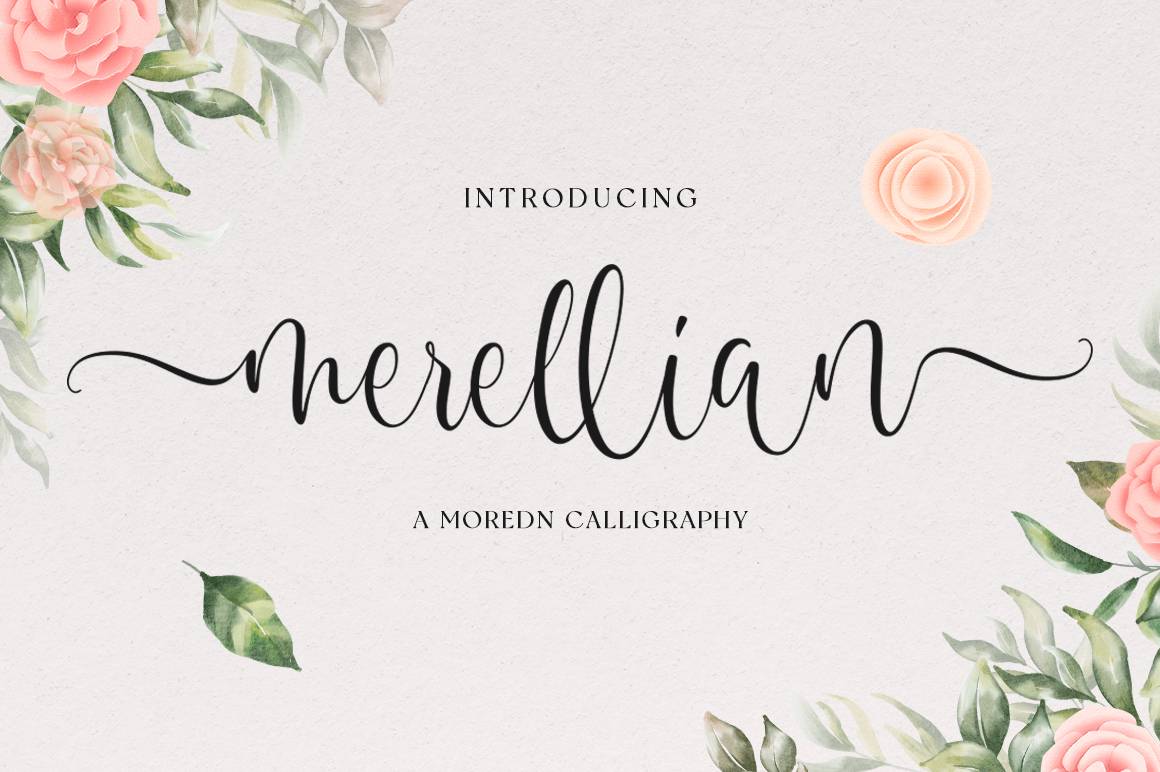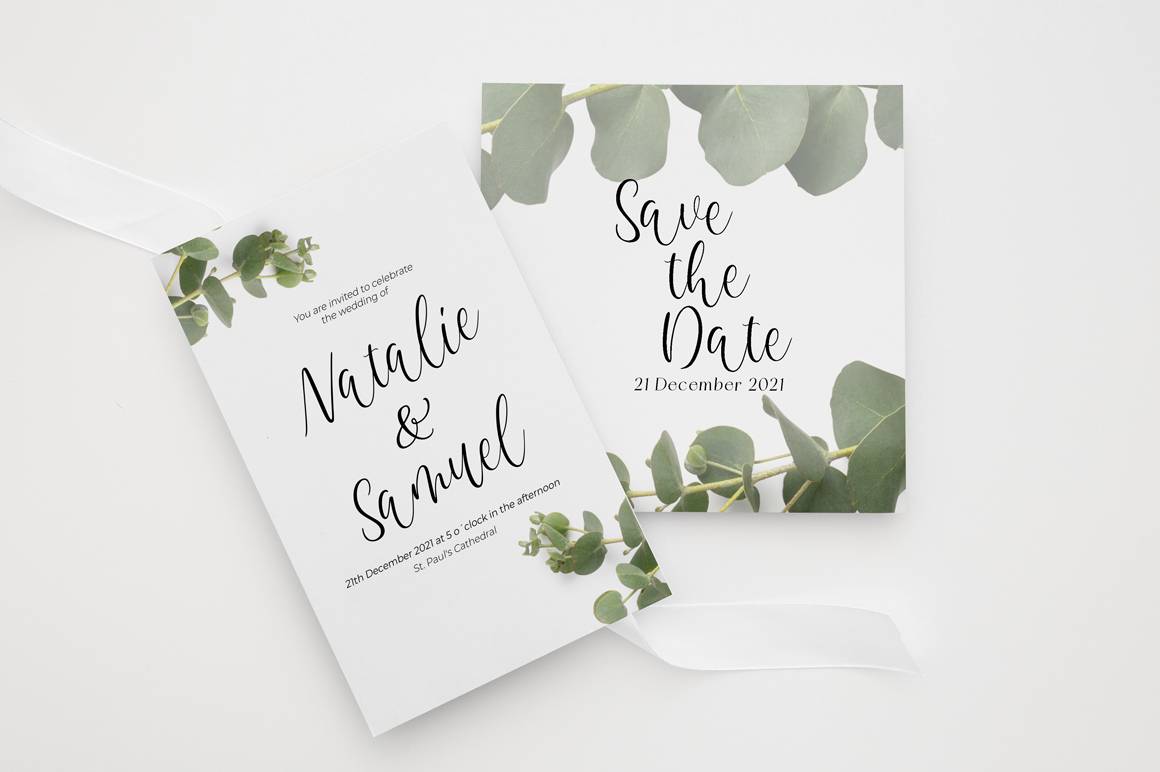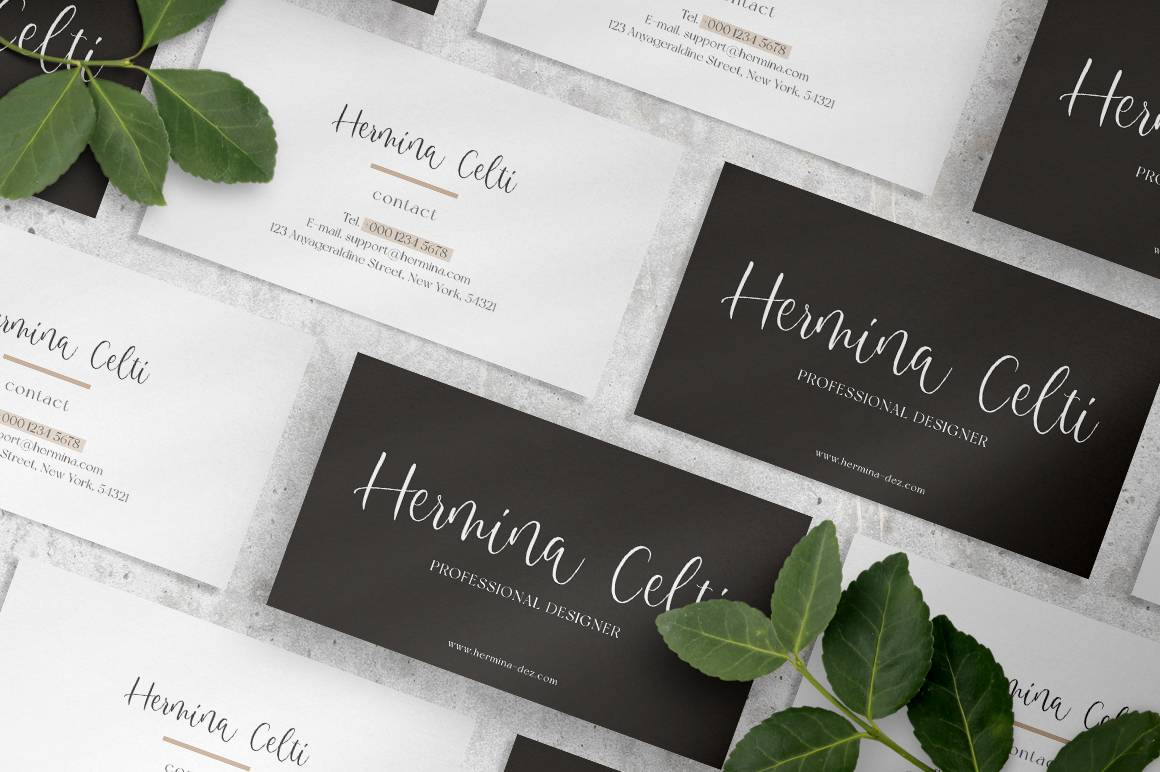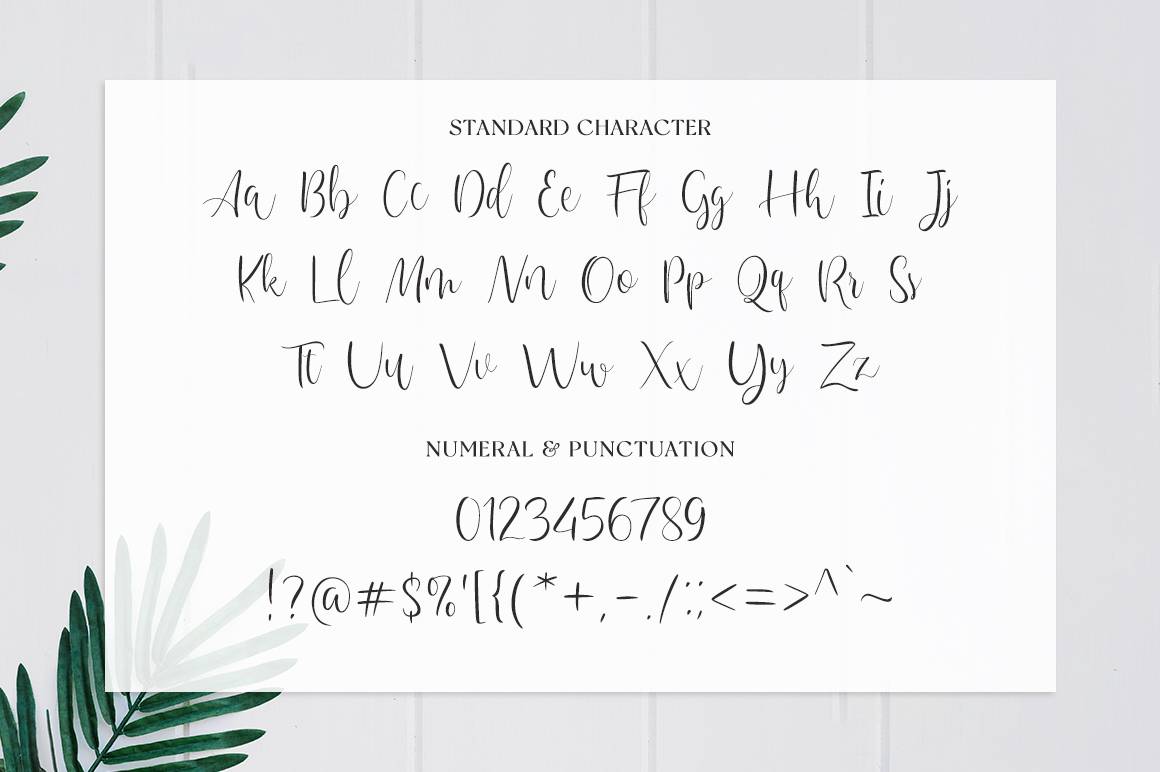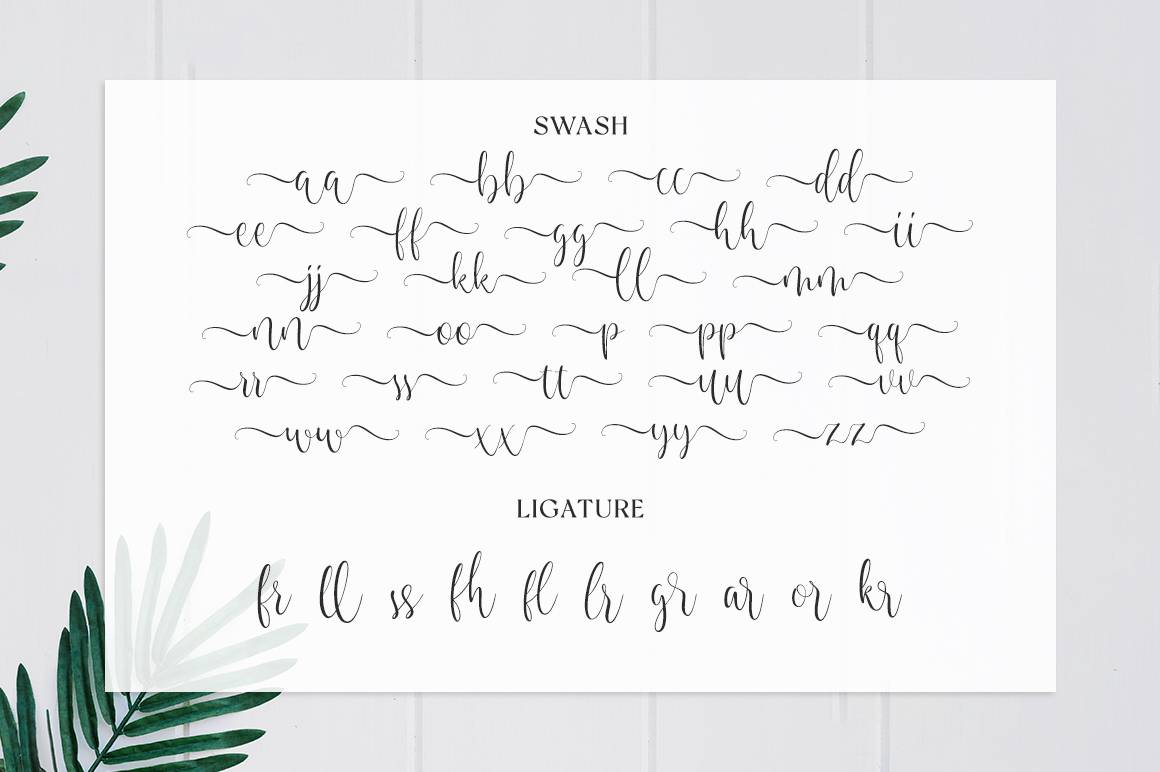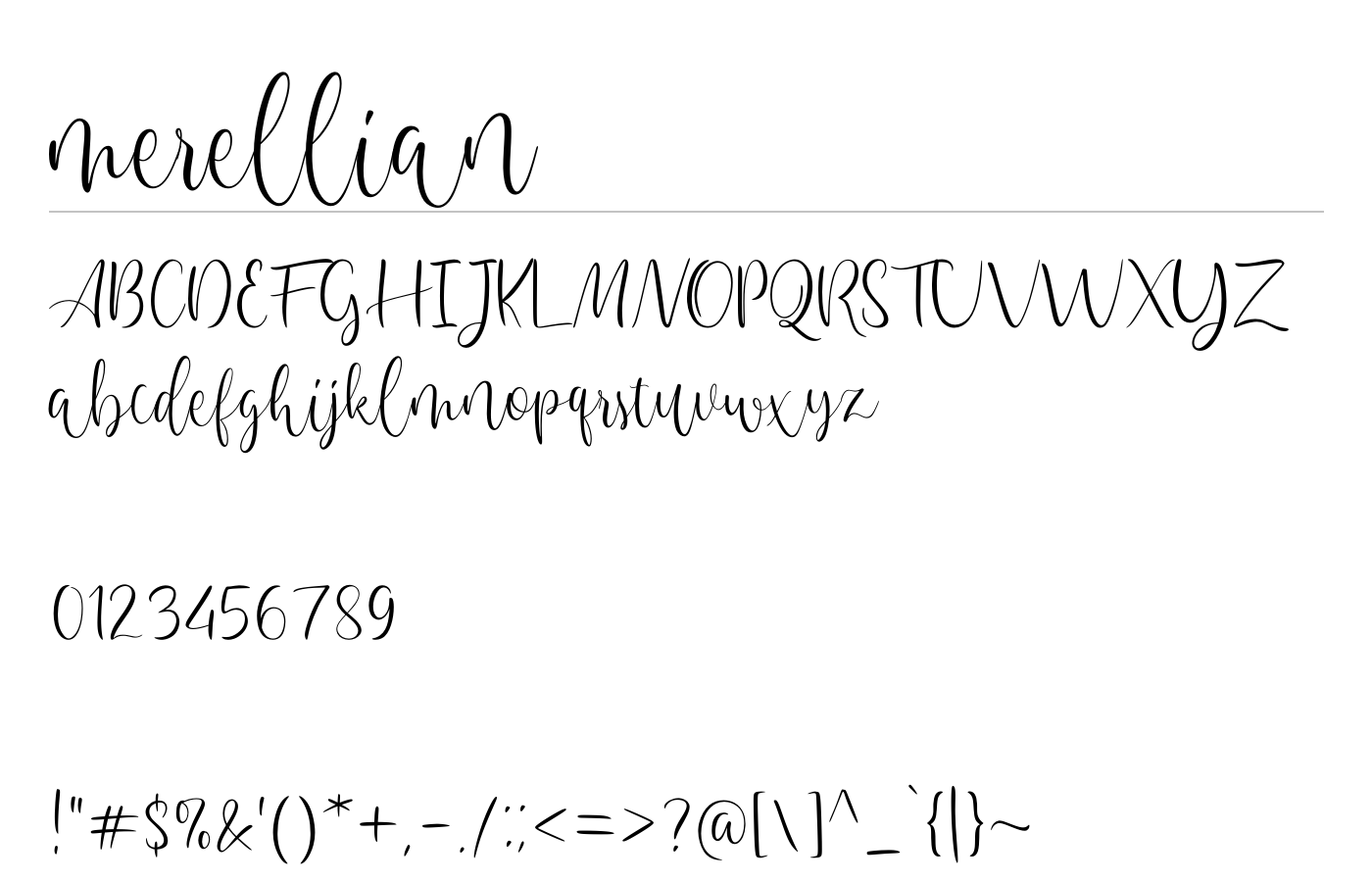
Merellian is a light, elegant script font with a handwritten feel, featuring thin, flowing strokes and smooth curves that create a graceful and airy appearance. Its tall, slender letterforms with subtle variations add a personal, stylish touch, making it ideal for feminine branding, invitations, and creative headlines where a delicate yet modern look is desired. This font works beautifully in projects that seek a refined, approachable, and artistic vibe.
Merellian Font
About Merellian Font